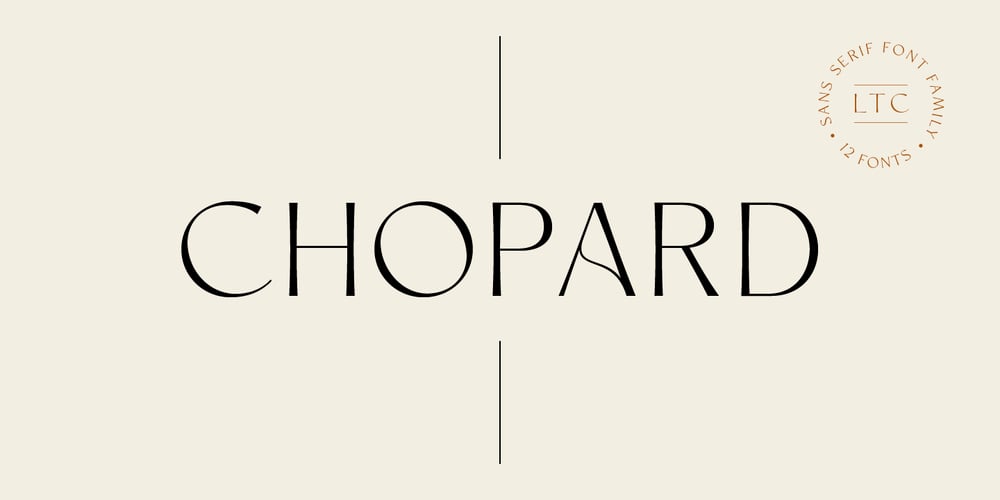
Chopard Font Family was designed by Pavel Larin and published by Larin Type Co. Chopard contains 12 styles and family package options. Chopard is an elegant and modern sans-serif font family. It includes upright and Italic style, each of them has six weights from light to bold. This is a multi-purpose font that is perfect for any project, it is contrasted, modern and easy to read. With it, you can create logos, use in advertising, packaging, book covers and magazines, headings, descriptions and much more.Todes includes stylistic alternates for uppercase and lowercase, with them you can add dynamics to the font and make your project more individual and stylized. This font is easy to use has OpenType features.